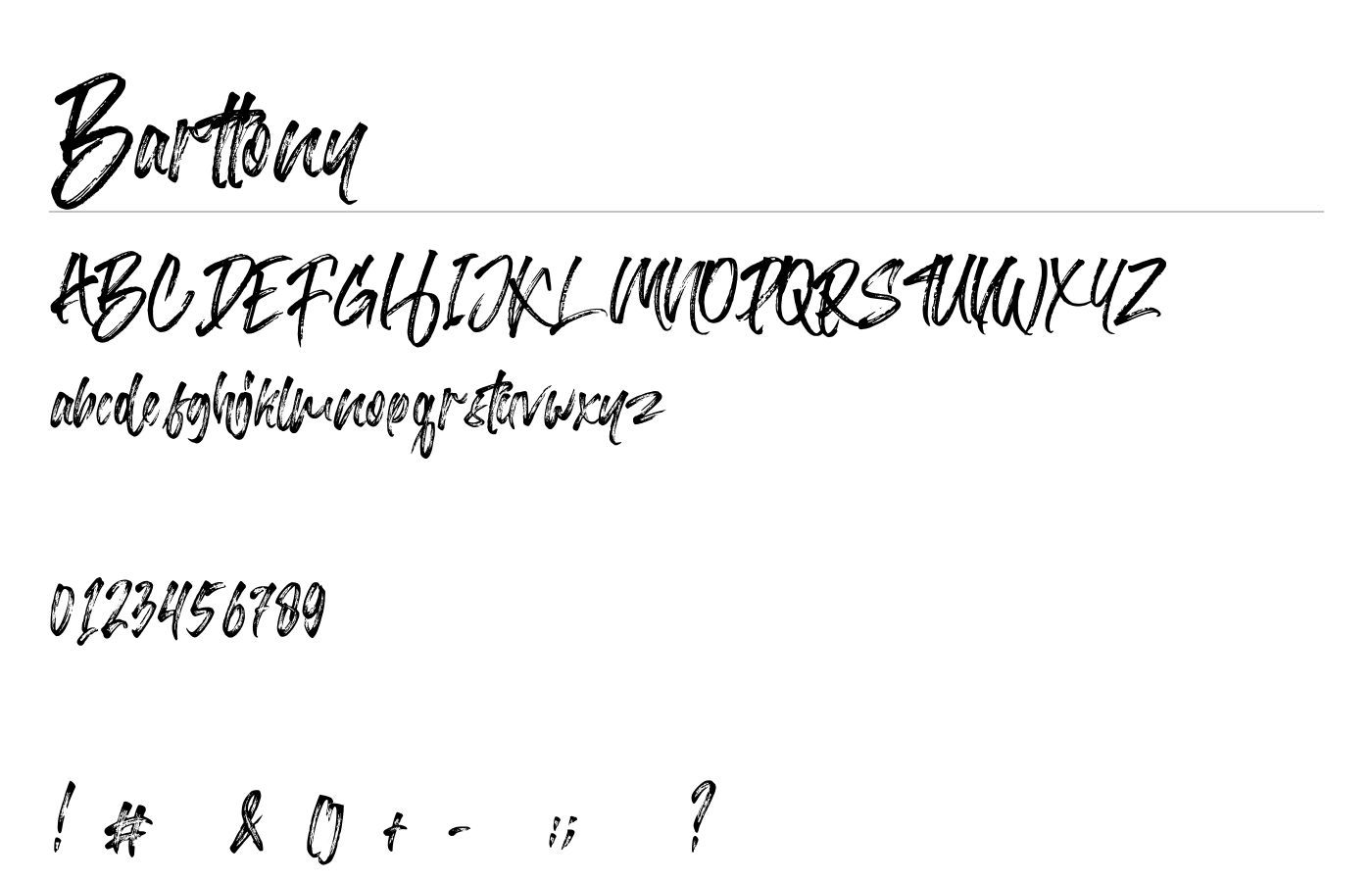
Barttony is a bold, expressive script font with a hand-painted brush style that gives it a raw, artistic feel. Its dynamic strokes and textured edges create an energetic and creative vibe, making it perfect for designs needing a personal, edgy touch such as logos, posters, or trendy branding. This font excels in adding personality and a sense of movement to headlines and creative projects.
Barttony Font
About Barttony Font